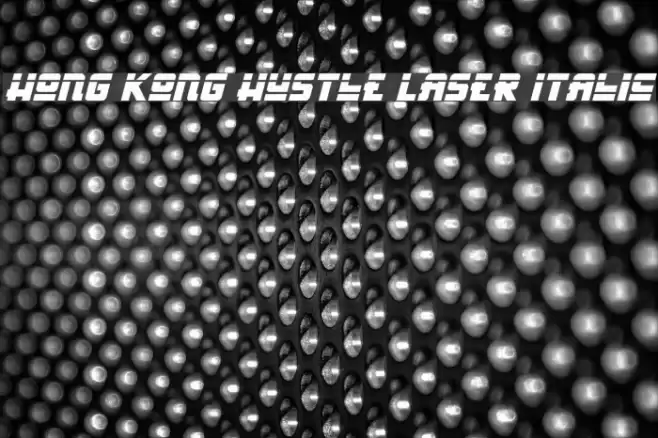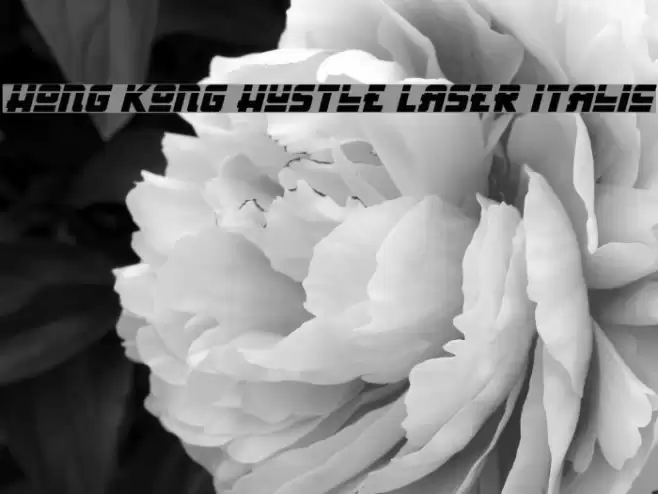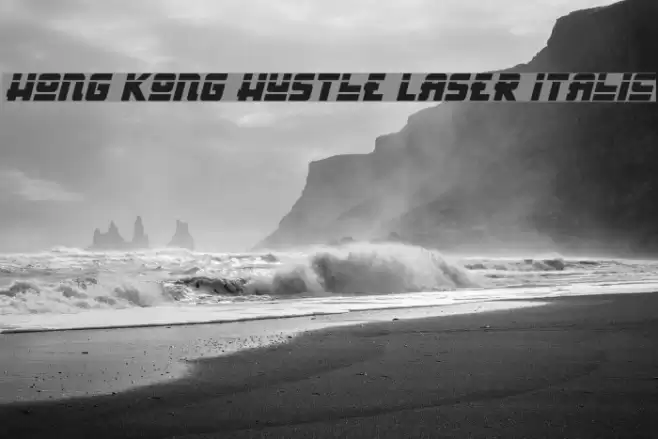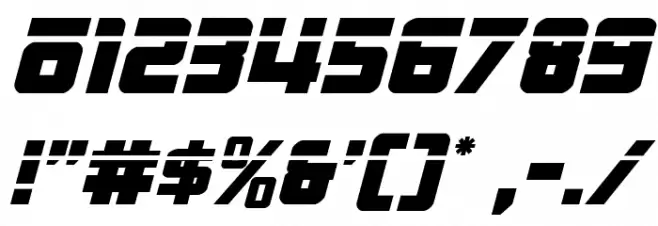
Hong Kong Hustle Laser Italic Font
Hong Kong Hustle Laser Italic Description
This font features a bold, futuristic design with a strong geometric influence. The characters are sharply angled, giving a sense of speed and modernity. The strokes are thick and consistent, creating a powerful visual impact. The italic slant enhances the dynamic feel, making it suitable for projects that require a sense of motion or energy. The font includes uppercase and lowercase letters, numerals, and a variety of special characters, all maintaining the same bold and angular style.
A bold, geometric, and italic font with a futuristic style from Uncategorized fonts.
- Proposed Projects: Ideal for sci-fi movie posters, video game titles, technology branding, and sports team logos.
- Overall Style: Futuristic